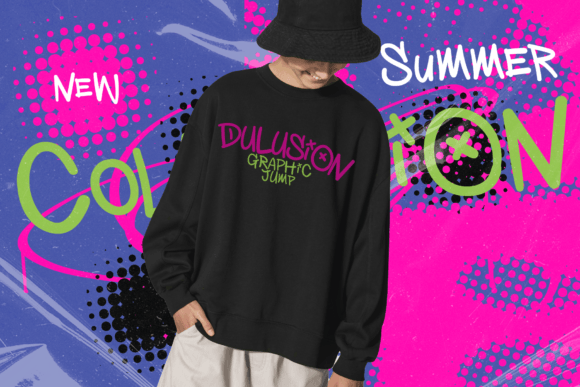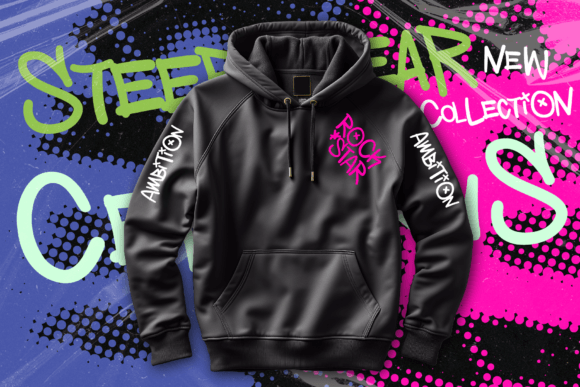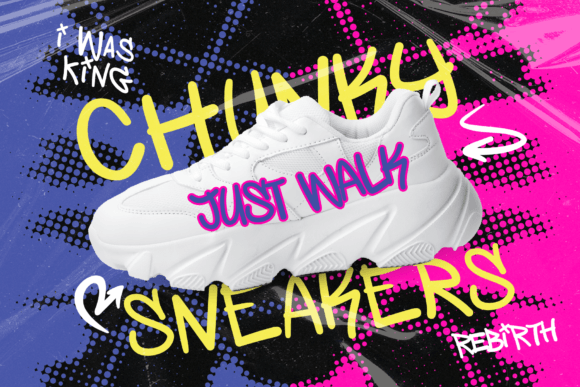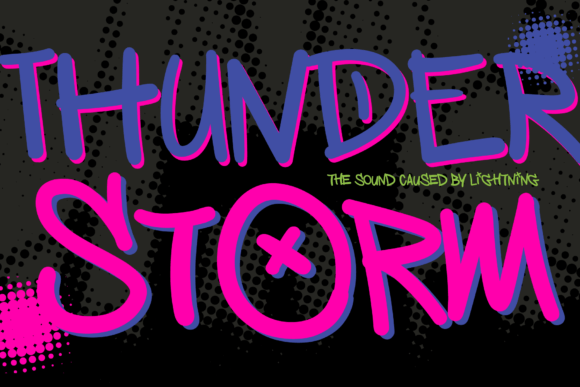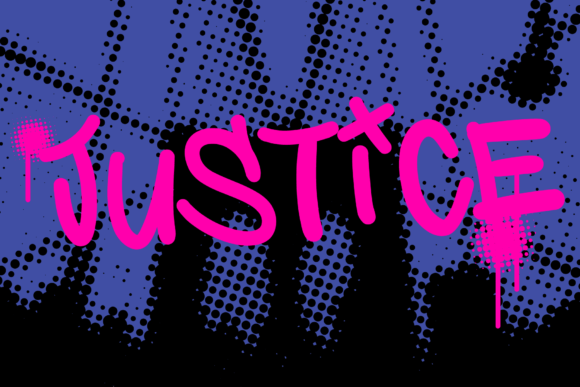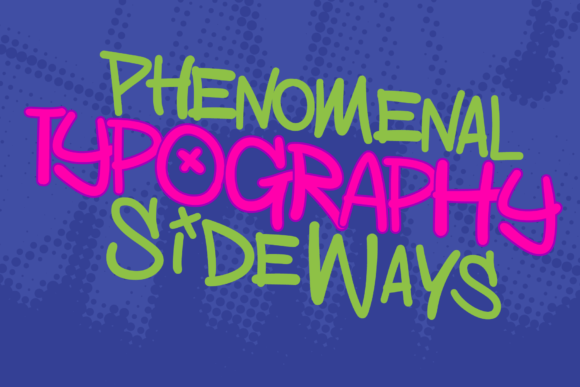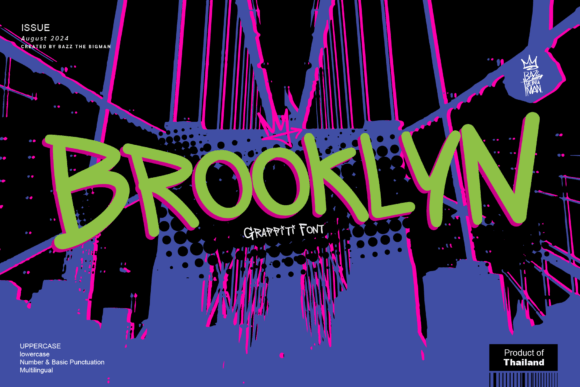
Unleash Your Creativity with Brooklyn Font: The Ultimate Graffiti-Styled Typeface
In the world of typography, few fonts capture the essence of urban street art as perfectly as Brooklyn Font. This graffiti-styled typeface embodies the daring spirit of street art, infusing designs with a cool, urban vibe that’s hard to ignore. Whether you’re a designer looking to create dynamic t-shirt graphics, an athlete branding your gear, or a marketer seeking attention-grabbing advertisements, Brooklyn Font is the ideal choice for your projects.
The Spirit of Street Art
Brooklyn Font is more than just a typeface; it’s an attitude, a statement, and a reflection of the urban landscape. Inspired by the vibrant graffiti that dots city walls, this font brings the raw energy of the streets to your designs. Its bold, daring lines and unconventional style are sure to make your projects stand out in a crowd, giving them a distinctive edge that’s both modern and rebellious.
Perfect for Dynamic Designs
Brooklyn Font’s unique characteristics make it an excellent choice for a variety of design applications. Here are some of the areas where this superb display font truly shines:
- T-shirt Graphics: Create eye-catching, street-style tees that appeal to the fashion-conscious and the rebellious alike. Brooklyn Font’s graffiti-inspired aesthetic ensures your designs will pop.
- Athletic Gear Branding: Give your sports apparel and equipment a bold, competitive edge with a font that’s as dynamic as the athletes who wear it.
- Attention-Grabbing Advertisements: Use Brooklyn Font to create ads that stop people in their tracks. Its urban vibe and daring style are perfect for campaigns targeting a youthful, fashion-forward audience.
- Fashionable Clothing Designs: From streetwear to high fashion, Brooklyn Font adds a touch of urban chic to any clothing line, making it a versatile choice for designers.
Why Choose Brooklyn Font?
With so many fonts available, why choose Brooklyn for your projects? Here are a few compelling reasons:
- Unique Style: Brooklyn Font offers a fresh alternative to traditional typefaces, allowing your designs to stand out in a sea of sameness.
- Versatility: Whether you’re designing for print, digital, or merchandise, Brooklyn Font adapts seamlessly, ensuring your message looks great across all platforms.
- Emotional Connection: This font’s connection to street art and urban culture can help you resonate with audiences who appreciate authenticity and boldness.
Tips for Using Brooklyn Font Effectively
To get the most out of Brooklyn Font, consider the following tips:
- Pair with Contrasts: Combine Brooklyn Font with simpler typefaces or clean lines to create visual interest and highlight the font’s unique features.
- Experiment with Colors: Take advantage of the font’s graffiti inspiration by experimenting with bold, vibrant colors that reflect the urban aesthetic.
- Keep it Bold: Brooklyn Font is designed to make a statement. Don’t be afraid to use it in large sizes or in bold applications where it can truly shine.
Brooklyn Font is more than just a typeface; it’s a design statement that says you’re bold, daring, and unafraid to push boundaries. By incorporating this graffiti-styled font into your projects, you’re not just choosing a font; you’re embracing the spirit of street art and urban culture. So why settle for ordinary when you can awaken the rebel artist in your designs with Brooklyn Font? Let your creativity run wild and make your mark with a font that’s as fearless as you are.